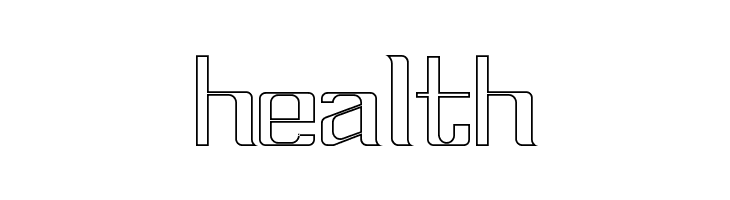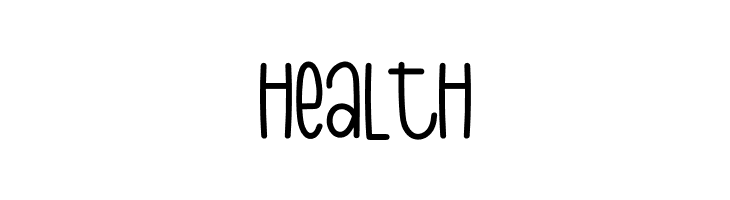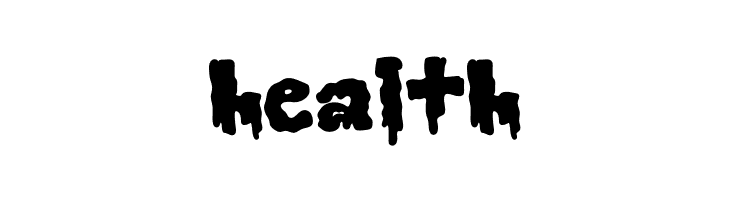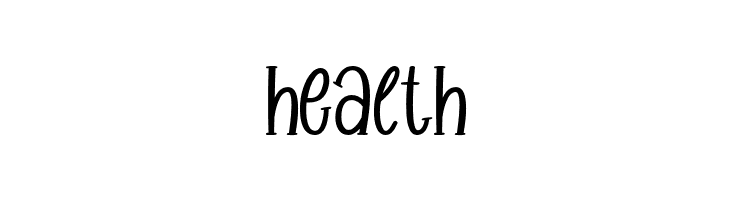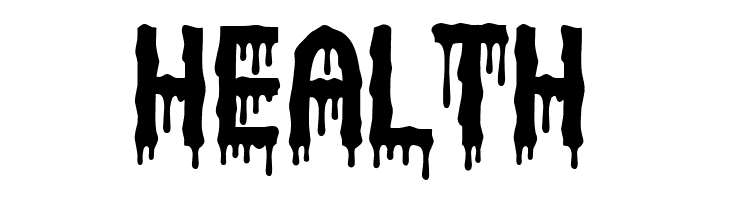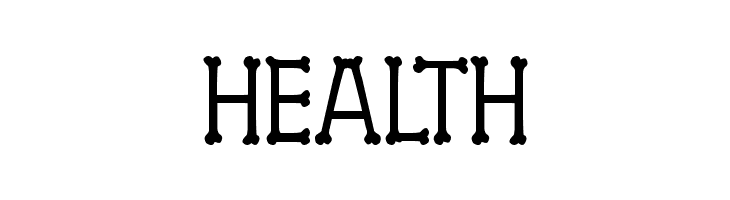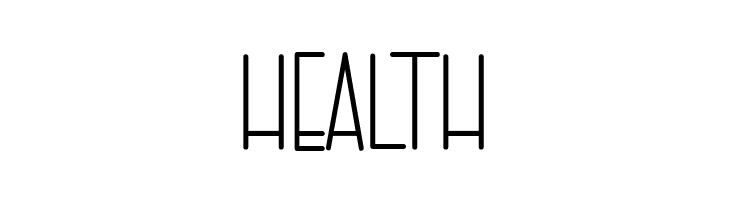
A playful, hand-drawn font with a whimsical, organic style.
A playful, handwritten script font with bold, rounded strokes.
A modern, geometric outlined font with clean lines and sharp angles.
A playful, rounded font with a whimsical, hand-drawn style.
A bold, spooky font with a dripping slime effect, ideal for Halloween themes.
A playful, handwritten font with smooth, flowing characters and a whimsical style.
A spooky, dripping font perfect for Halloween themes.
A spooky, bone-themed decorative font perfect for Halloween designs.
A charming, whimsical cursive script with elegant loops and swirls.
A playful, hand-drawn font with tall, narrow characters and rounded edges.